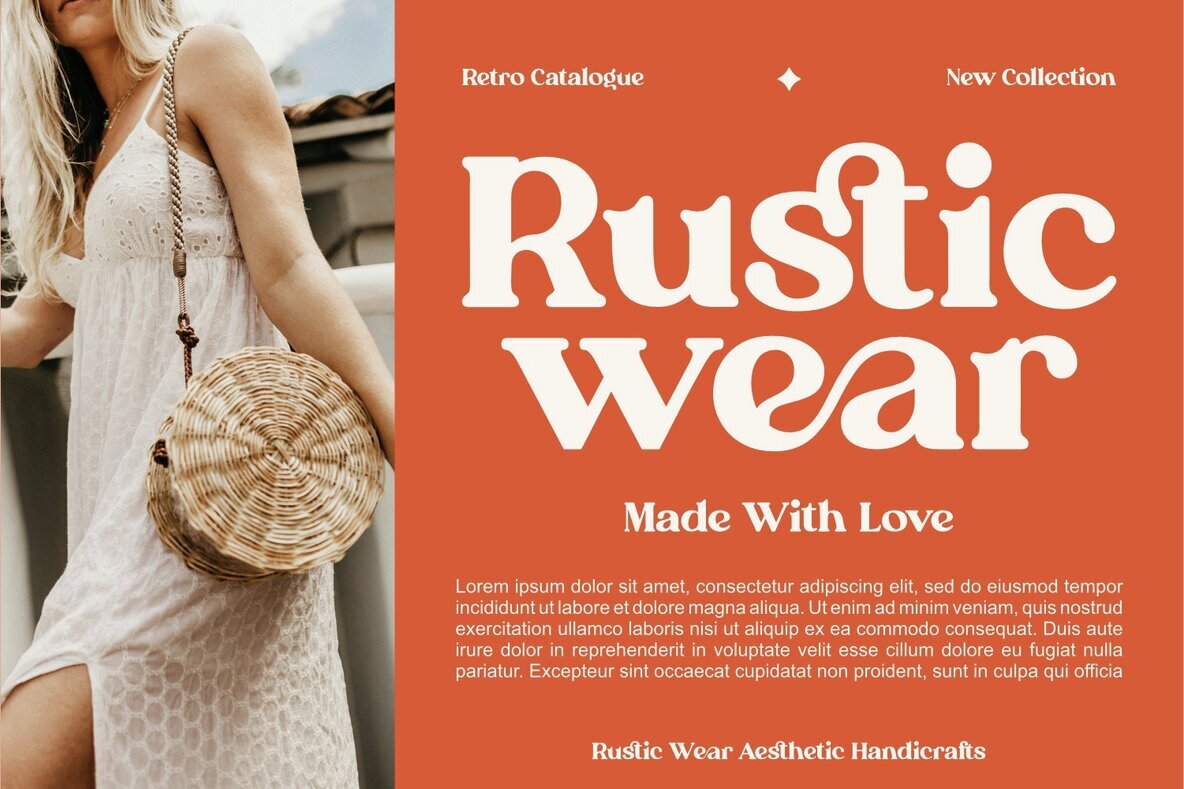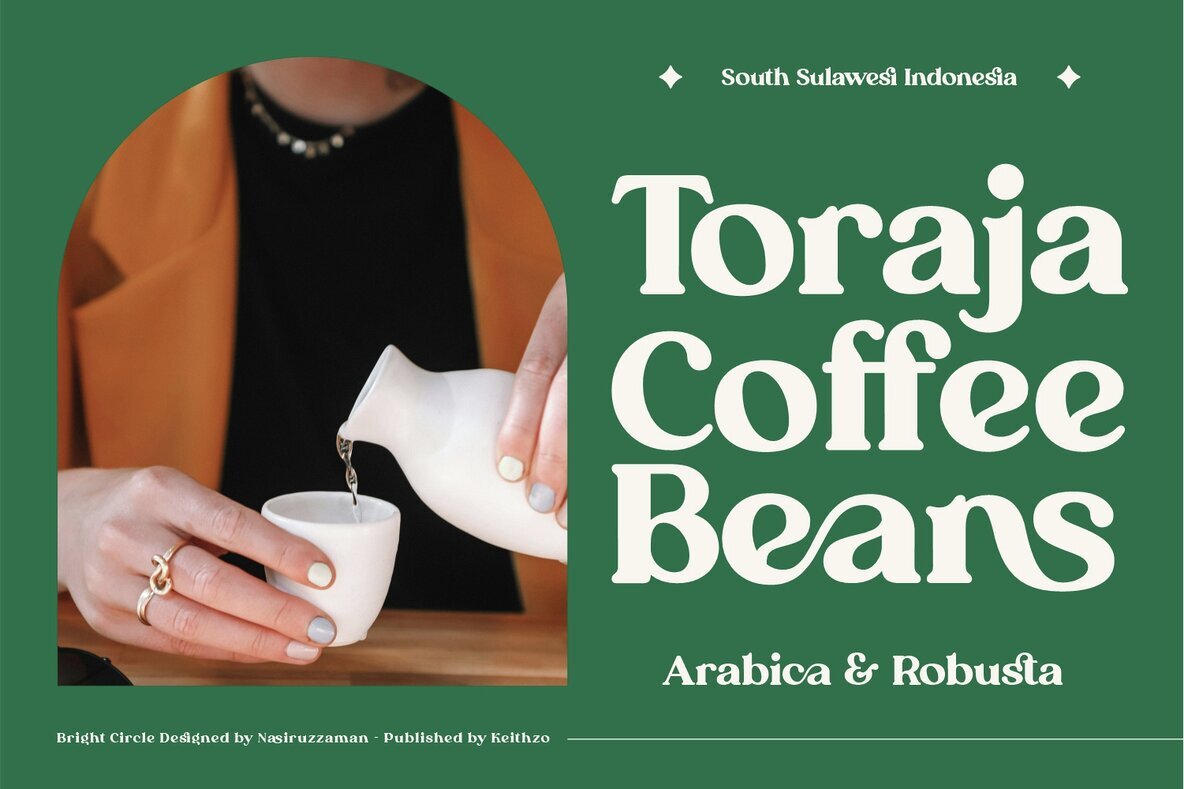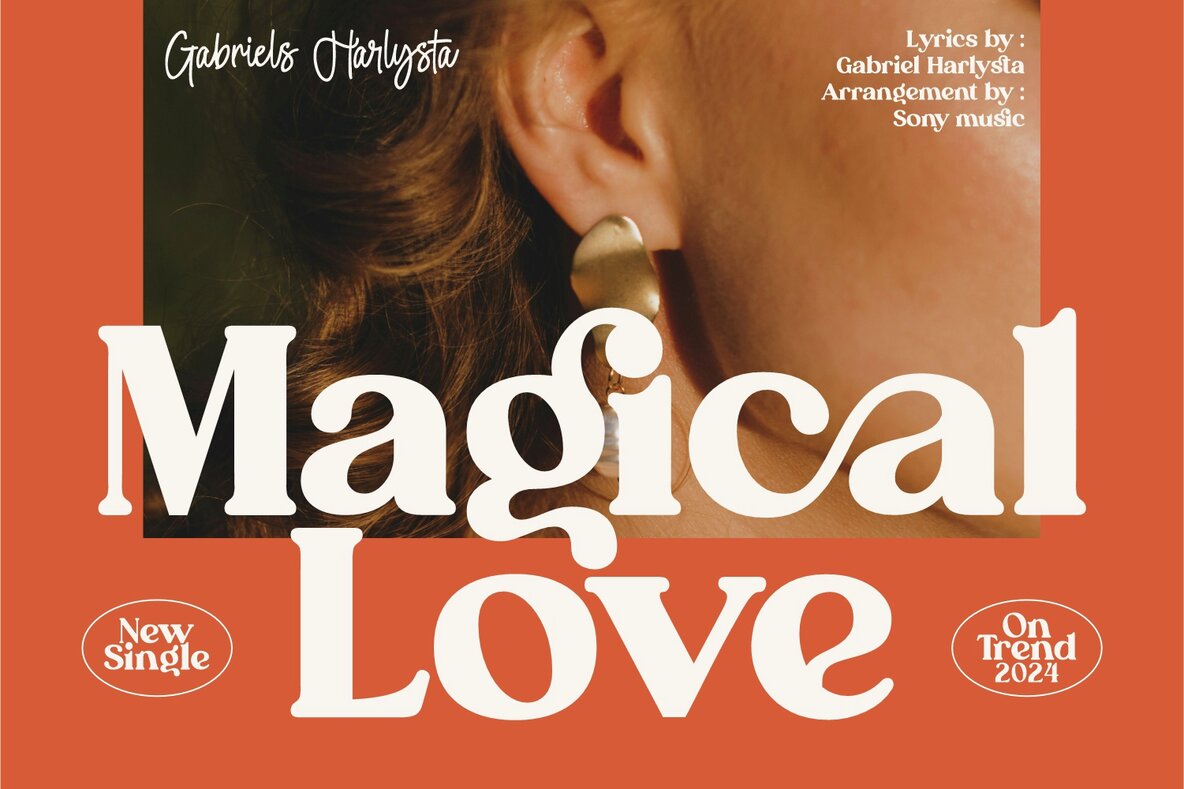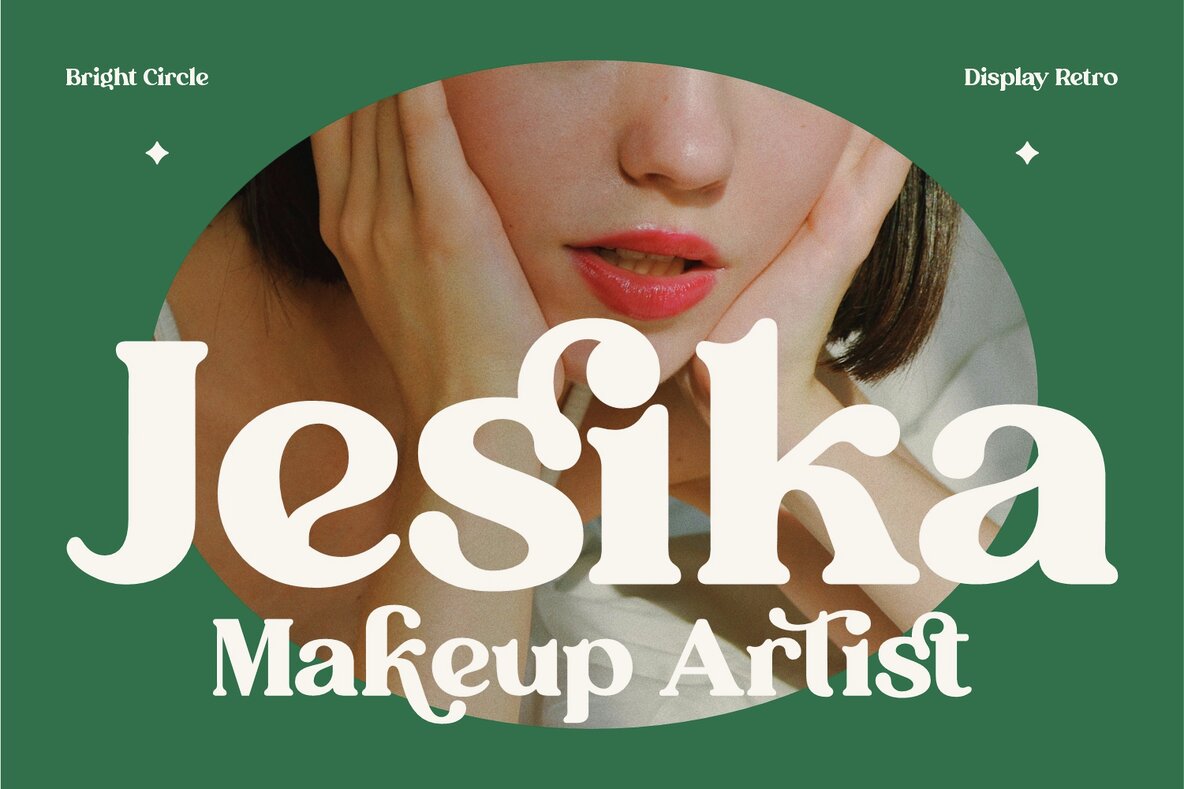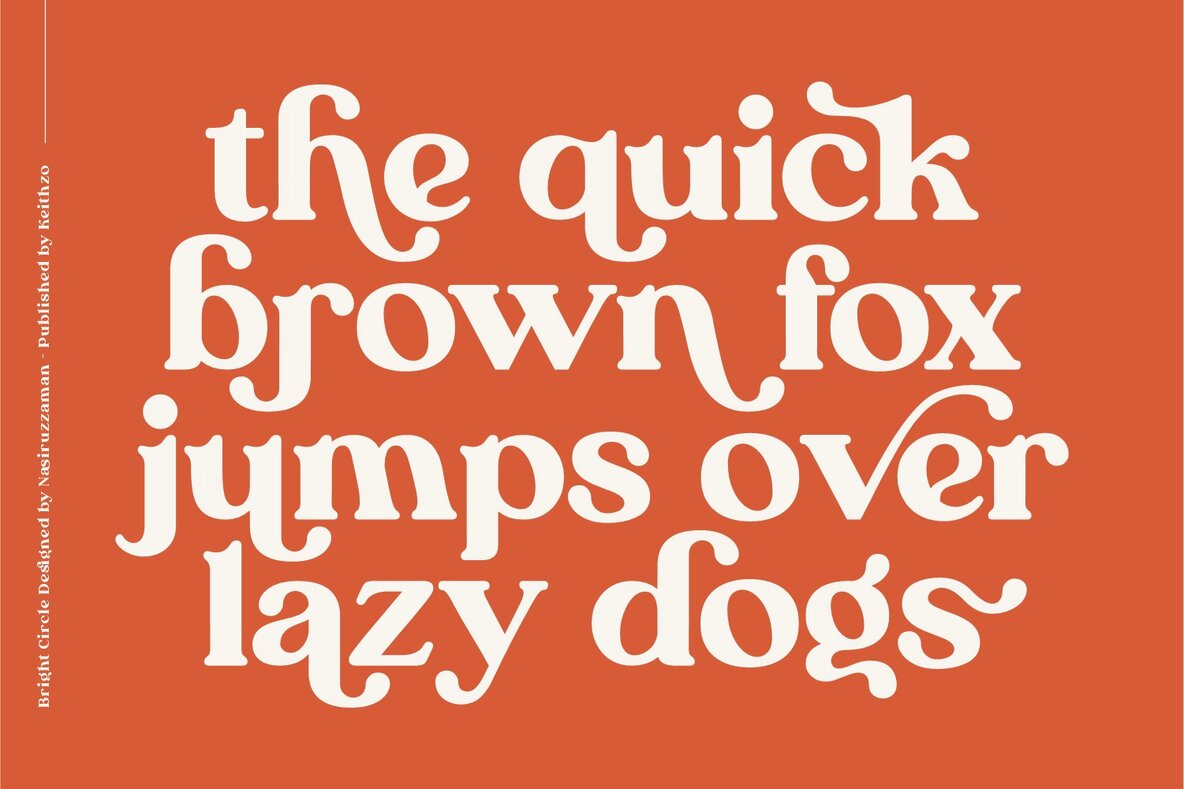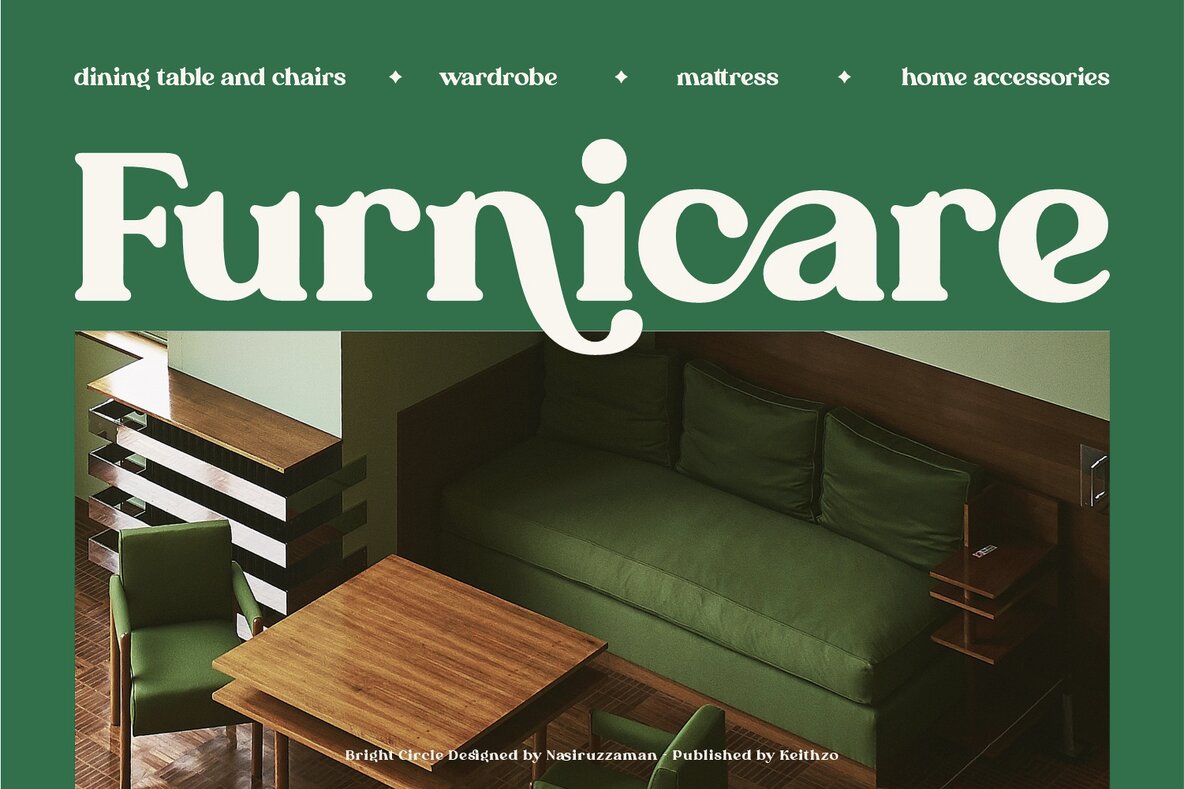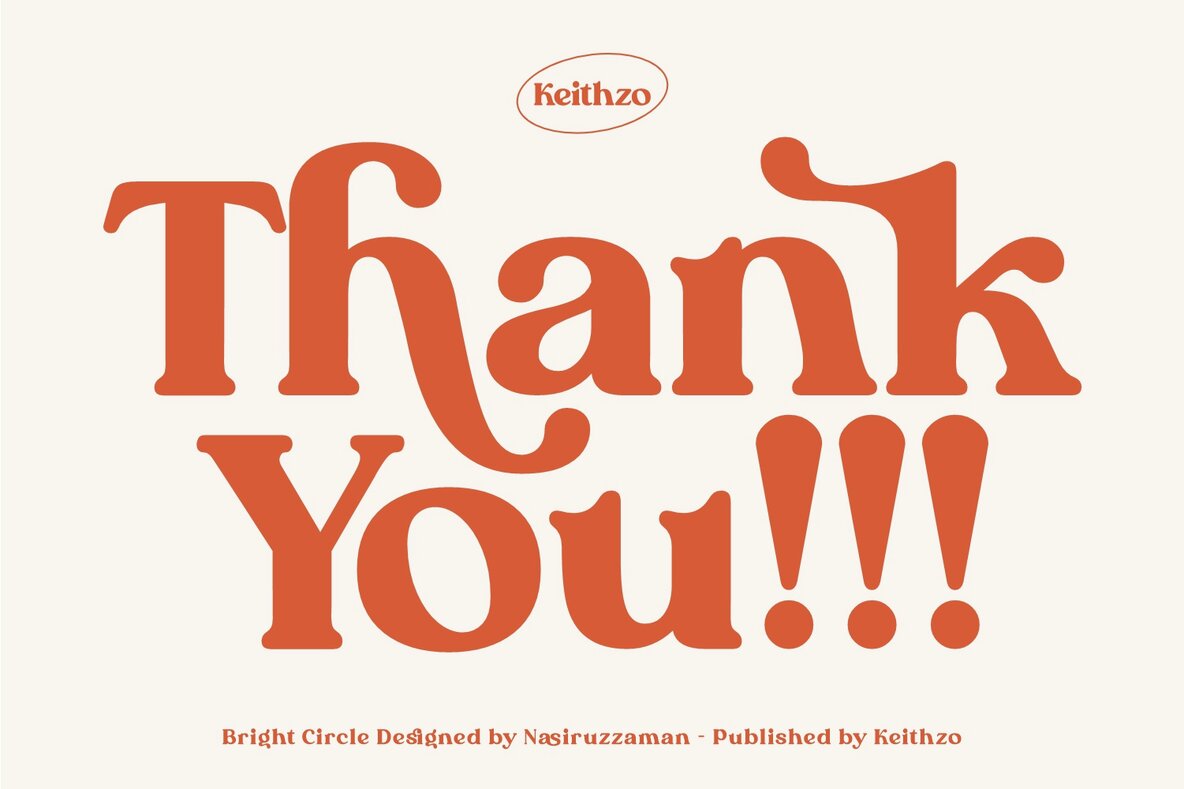
Bright Circle Font
Bright Circle
Bright Circle is a delightful retro display font that radiates warmth and nostalgia. Featuring charismatic curves and a vintage-inspired aesthetic, this font brings a sense of joy and playfulness to any design. It's the perfect choice for retro-themed projects, signage, posters, and branding, adding whimsy and personality to your creative endeavors.Bright Circle: Retro Display Font with Nostalgic Charm